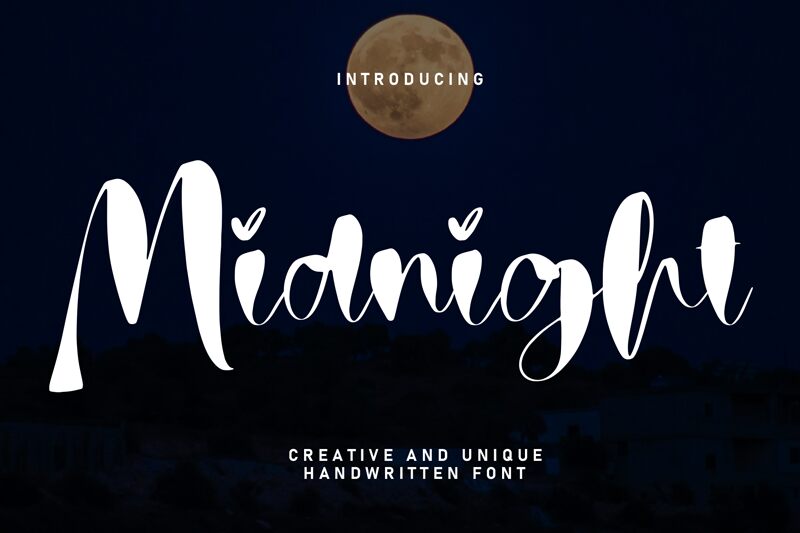
Midnight font by Scratchones is a free script font featuring a romantic and expressive handwritten aesthetic. This font captures the essence of fluid movement, combining elements of contemporary design with personal touches and artistic flair. Its handwritten character evokes an emotional warmth and connection with its audience. Midnight harmoniously combines a captivating personality with whimsical elements for a complete, characterful font solution.
The font lends itself seamlessly to a range of artistic and design uses. Some typical application examples would include invitations, greeting cards, branding, packaging, posters, apparel, social media covers, website headers, and product labels, among others. Midnight is also an interesting choice for jewelry and other accessory shops’ logos.